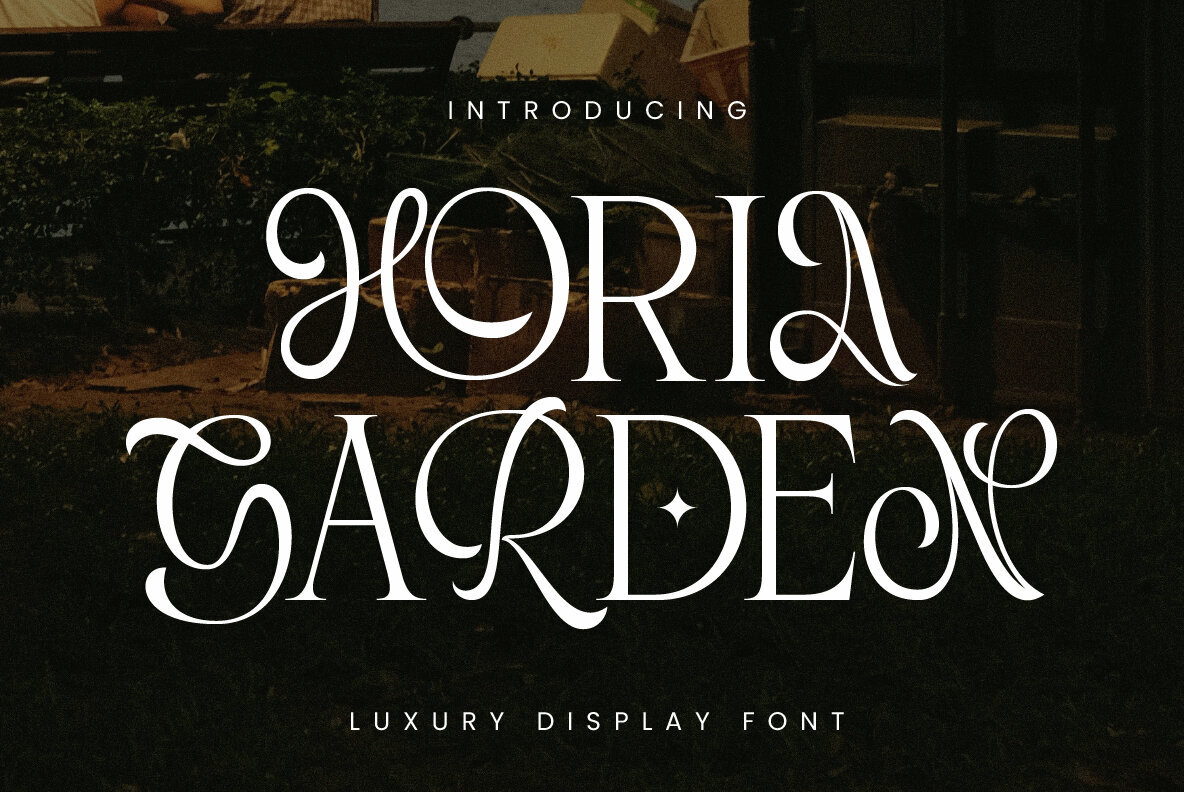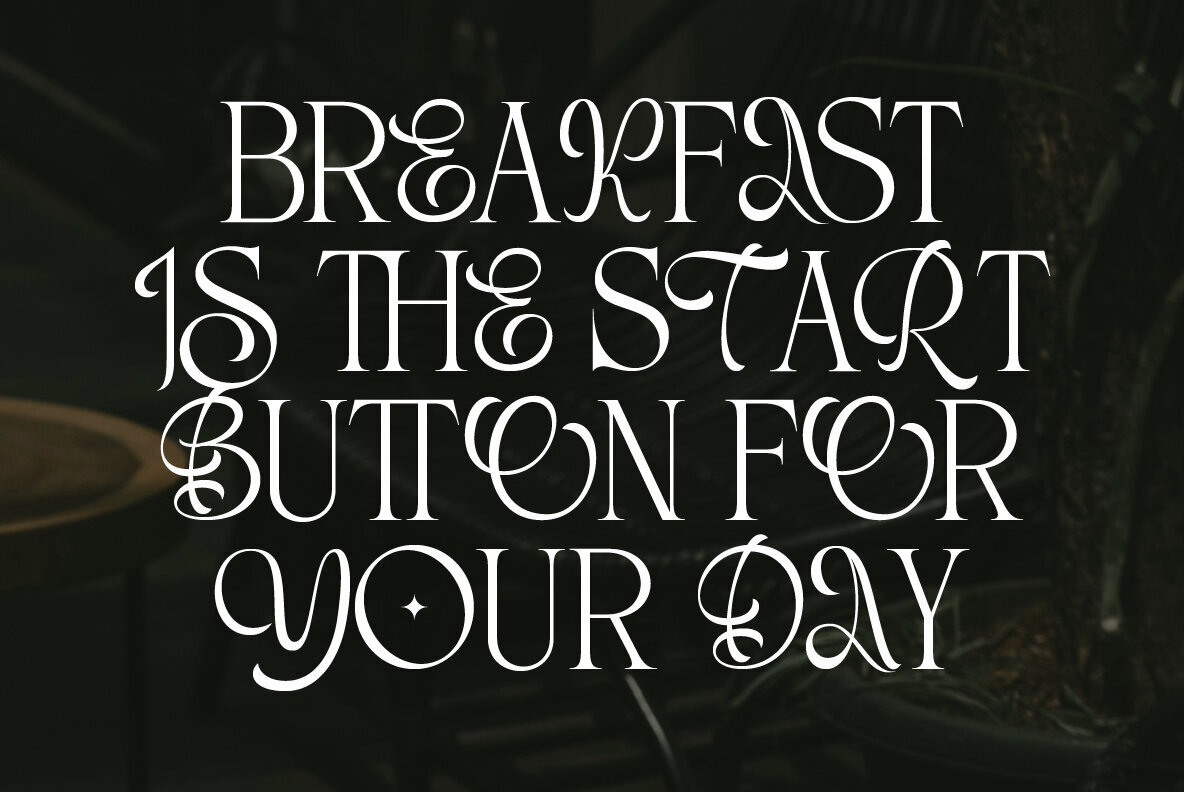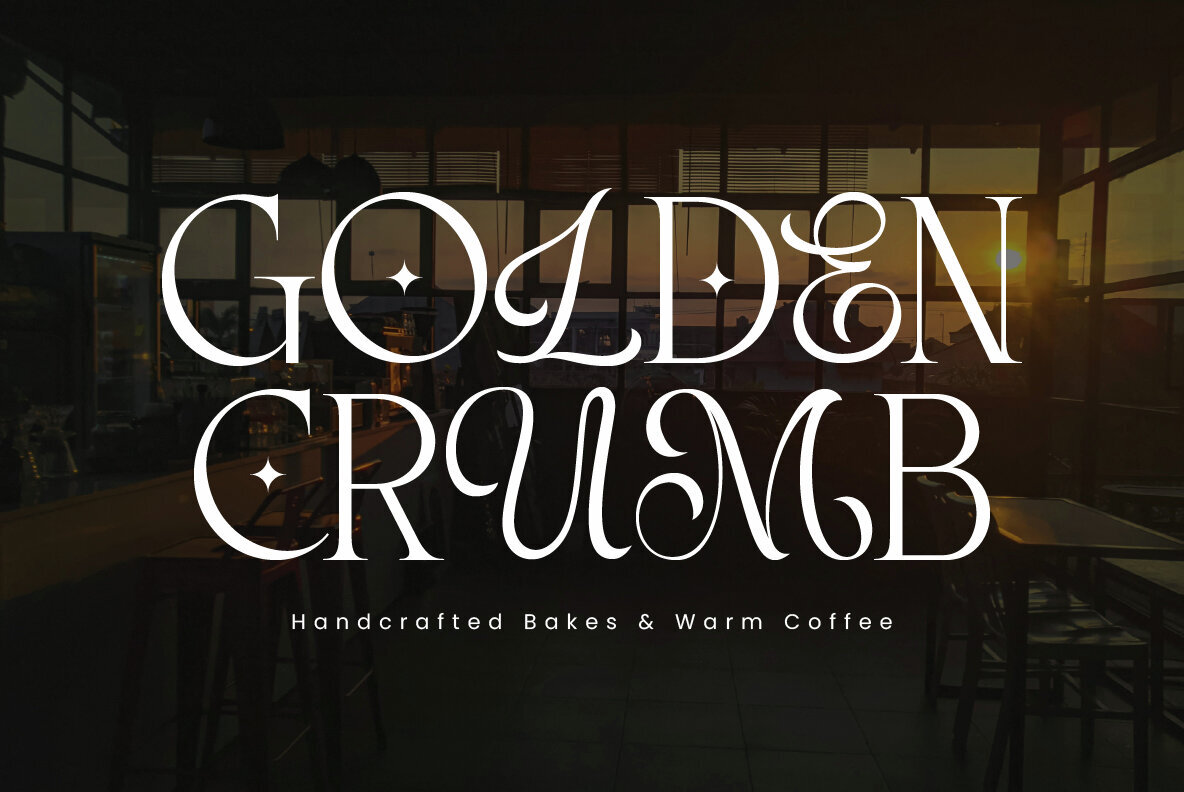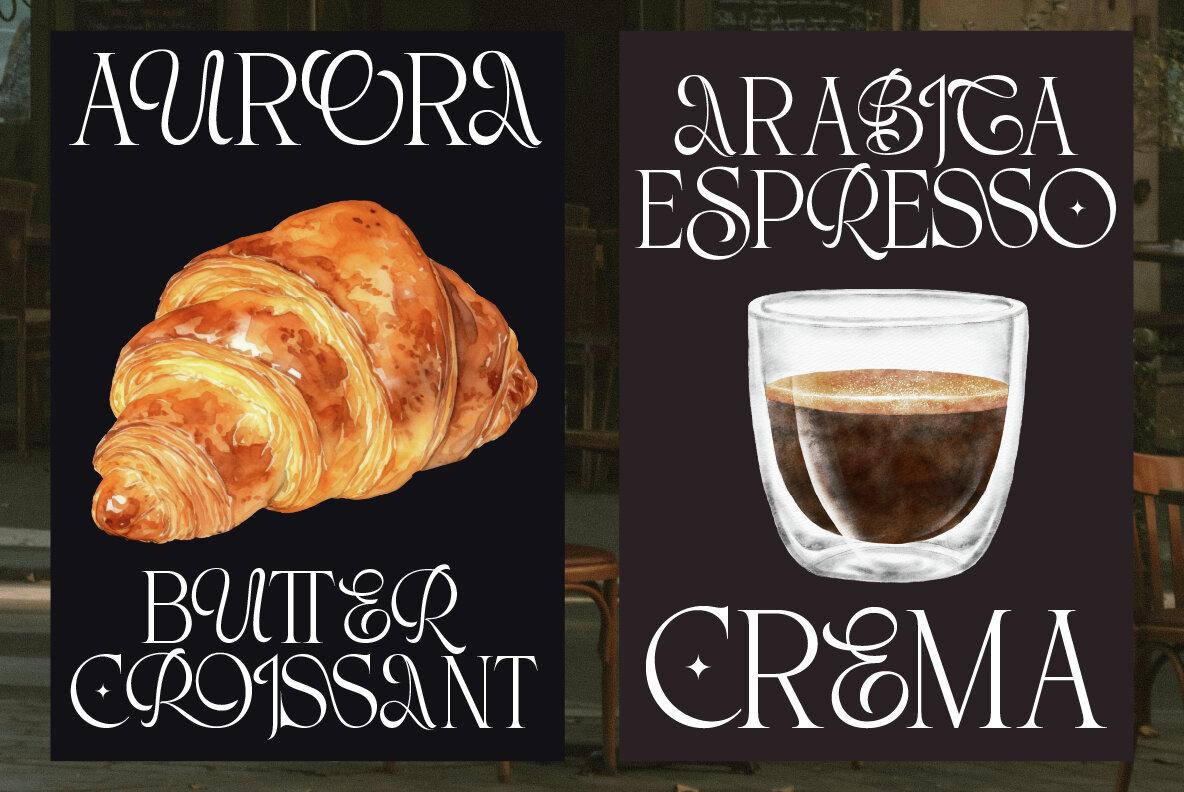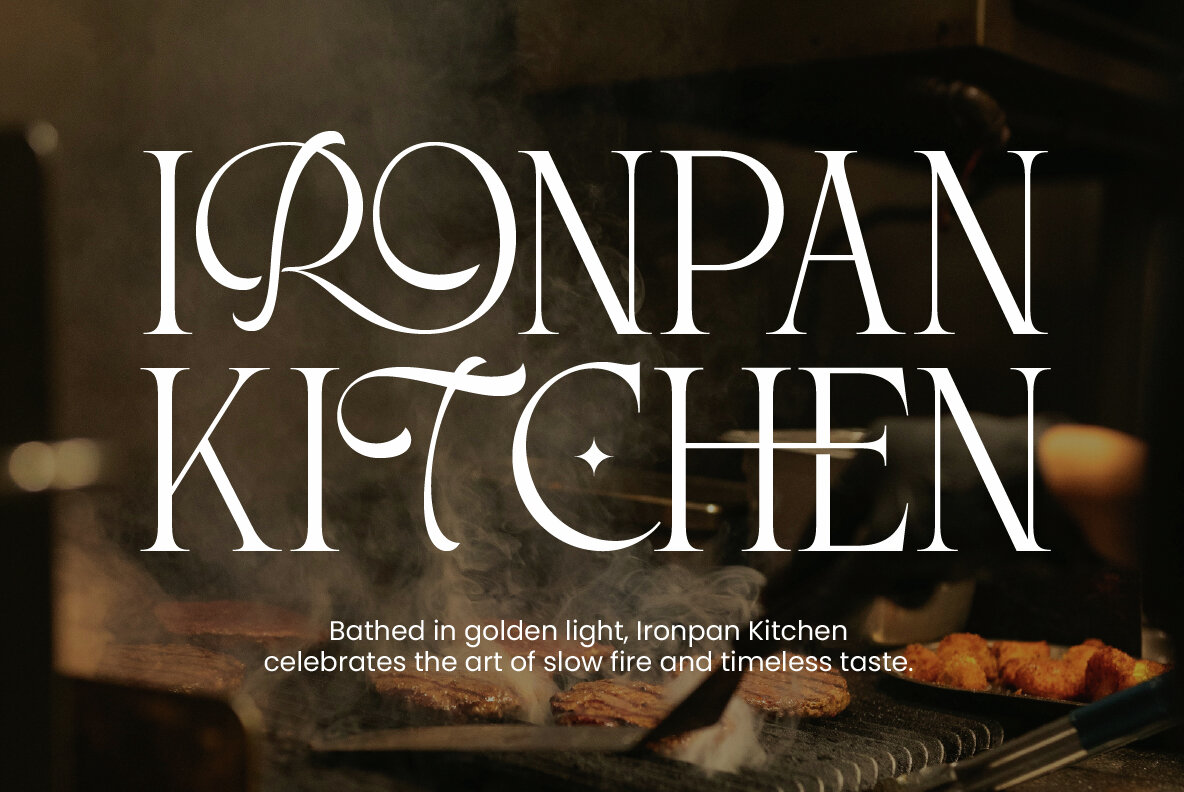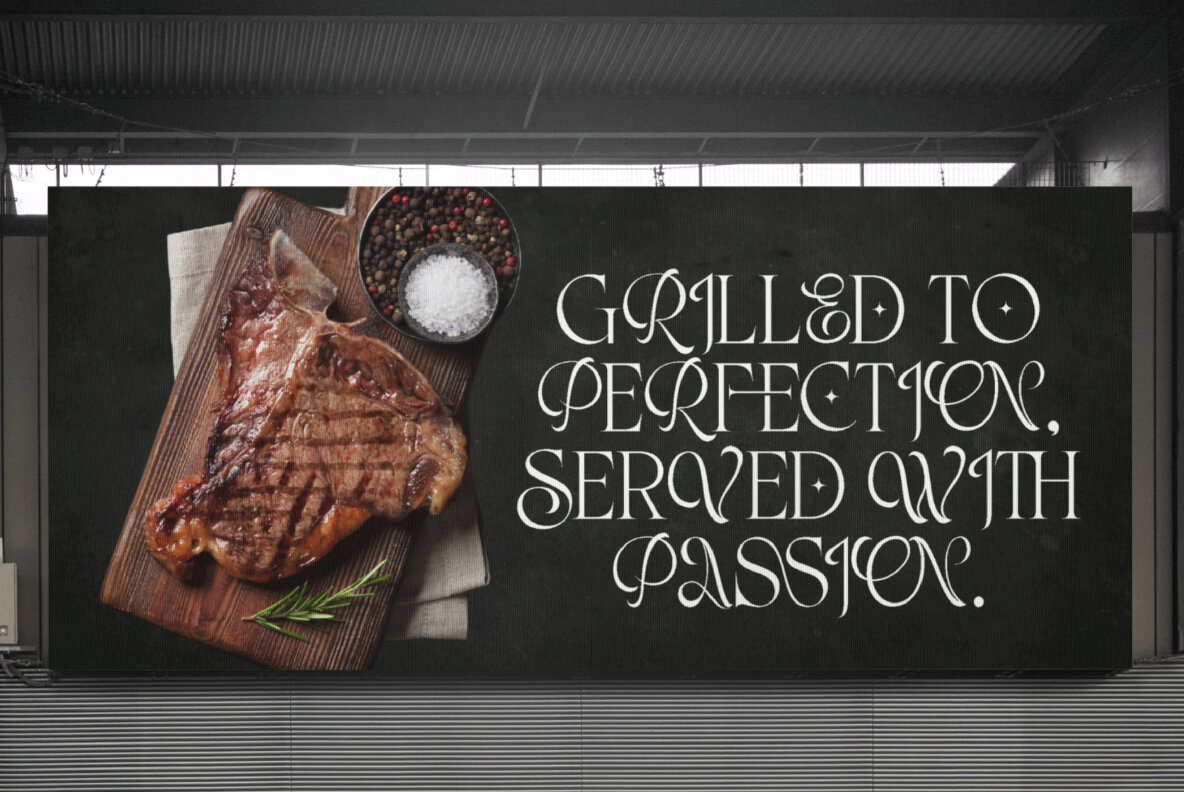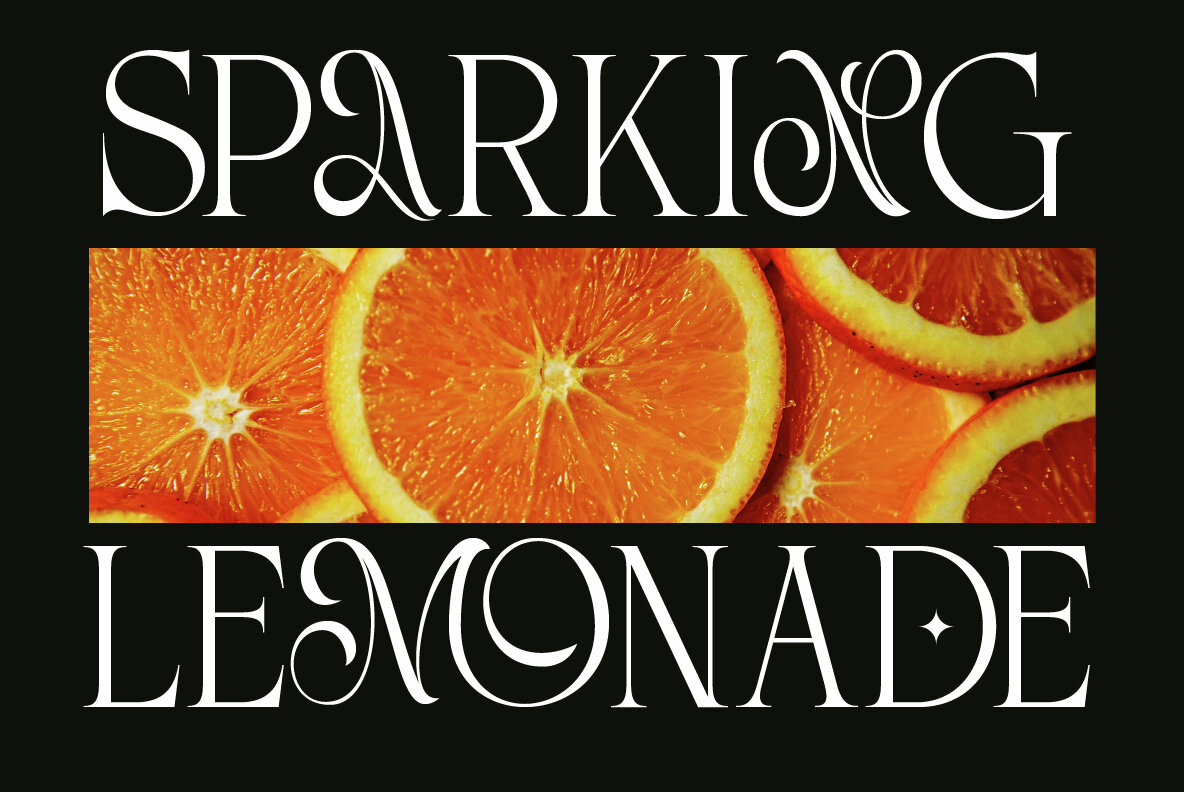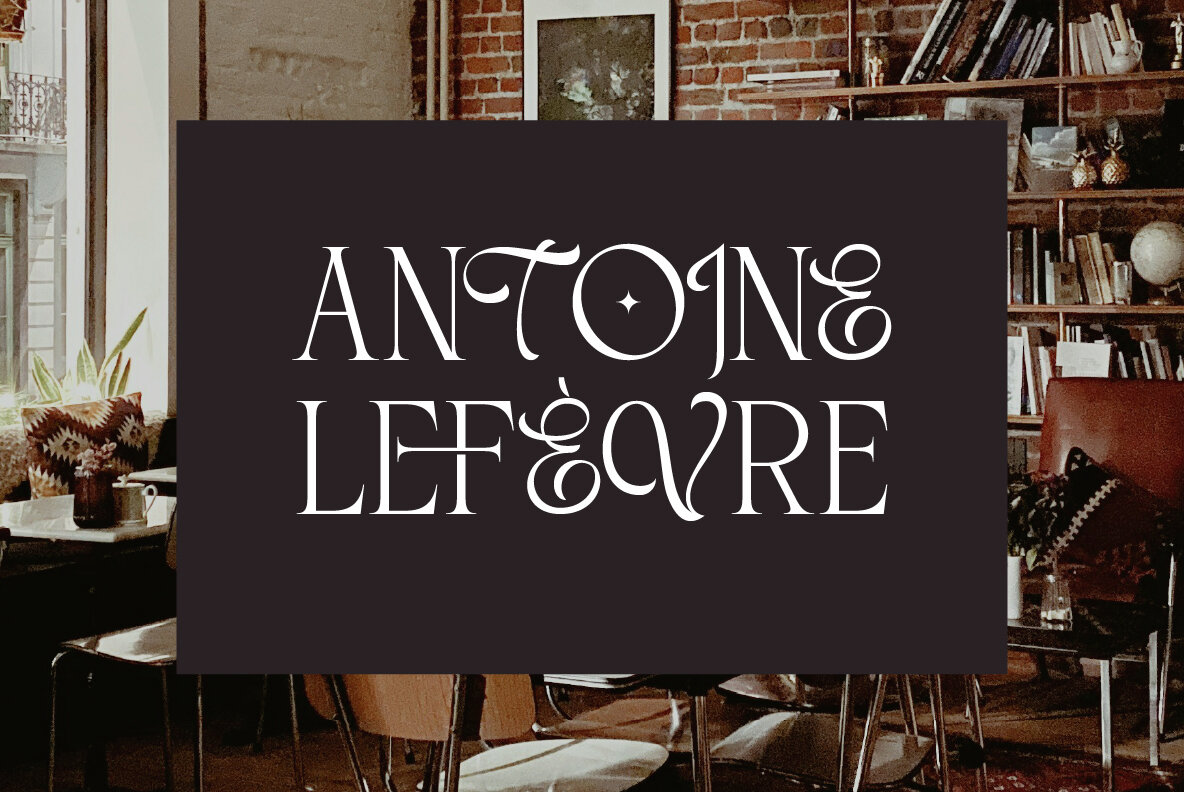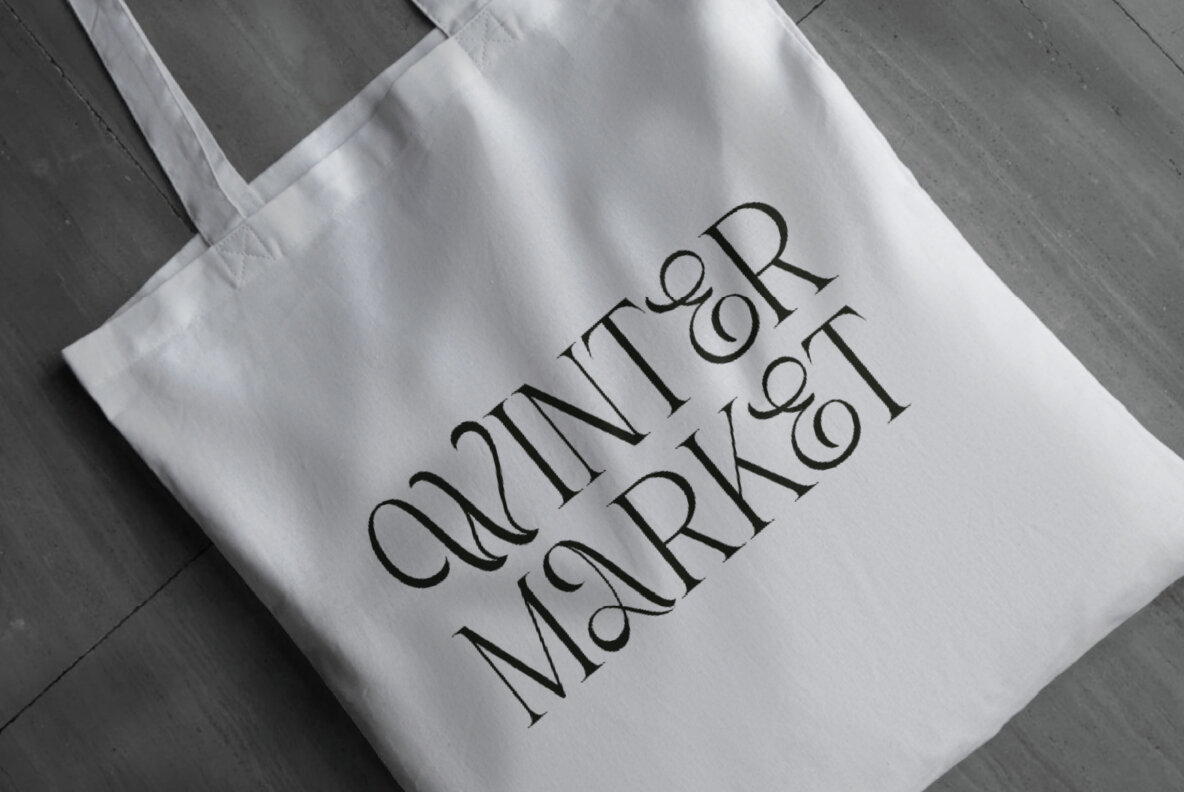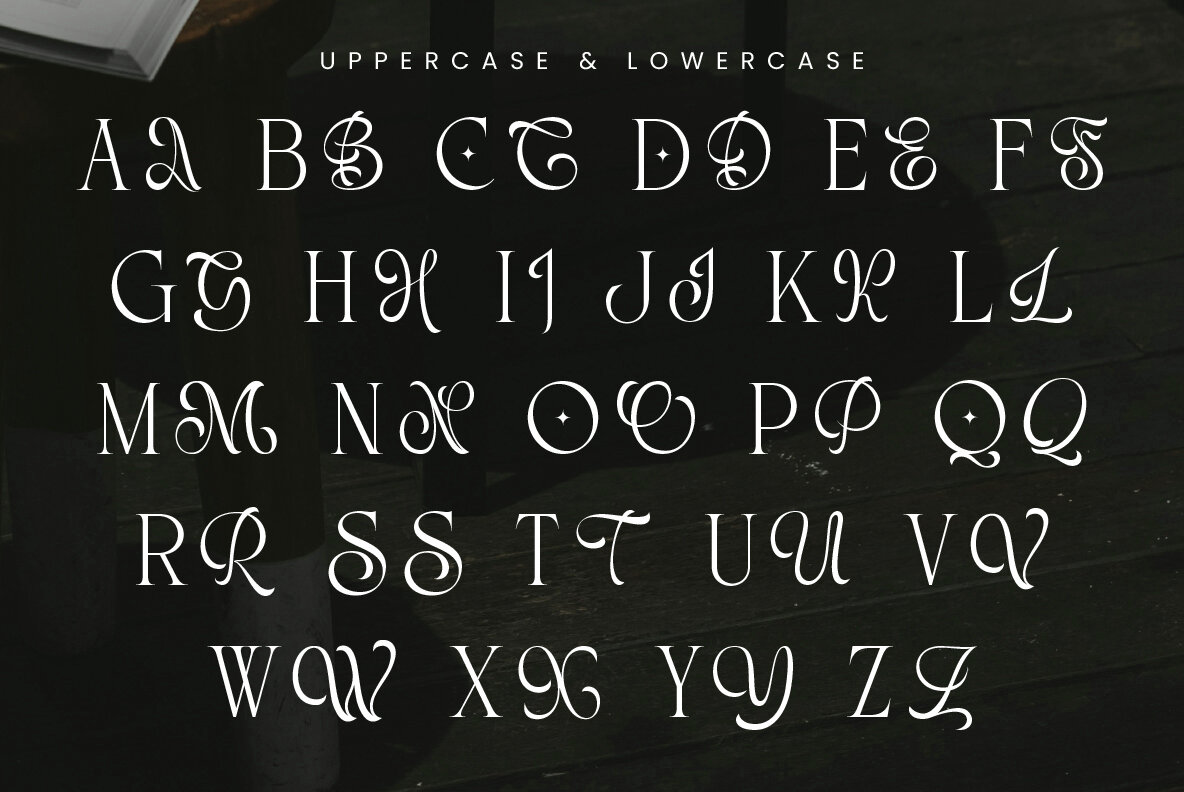
Horia Garden Font
Horia Garden Regular
Horia Garden is a luxury serif display font designed for refined food and lifestyle branding. Each letter features sculpted curves and classic detailing, combining sophistication with a welcoming warmth. The font's distinct aesthetic complements premium café logos, fine dining establishments, artisan bakeries, and upscale coffee packaging. Consider it a subtle mark of taste—a nod to careful craftsmanship and timeless style, making every project feel thoughtfully composed. Every character is crafted with fine attention to detail, delicate flourishes, and a sense of indulgent appeal. Horia Garden captures an atmosphere of golden elegance and understated luxury, making it ideal for visual identities that seek lasting character and charm. It pairs seamlessly with warm palettes and rustic-modern imagery, creating a cohesive environment where design echoes the nuances of flavor and lifestyle.Horia Garden Serif Display Font